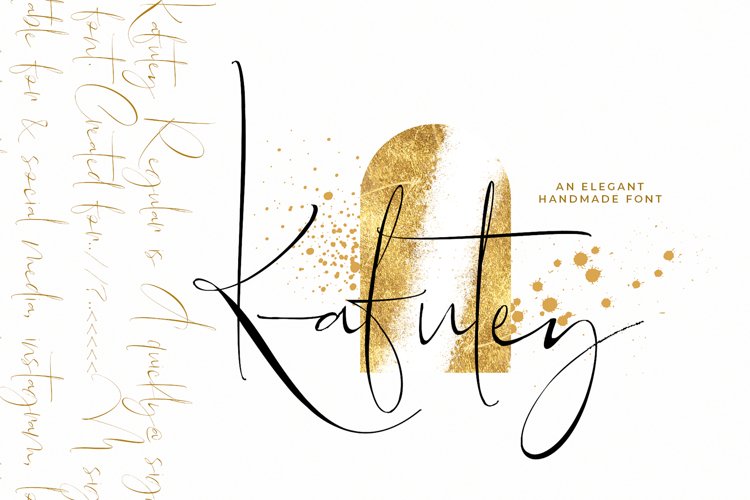
Kafutey is an elegant and very unique taste fonts. Come with hand-lettering style make this fonts look extremely natural. Thin and thickness, grunge scratches with signatures style will make any design project look realistic. Kafutey would be perfect to get a more charismatic impression or unique touch to your projects and branding, greeting cards, wedding, banner, logos, lettering, fonts pairing, etc.
Include with some alternative glyphs that you can combine every letter perfectly. Also easy to use with any program with opentype feature support.
This font support accent letters of Central Europa, Western (À Â Æ È Ë ã ä æ è...)